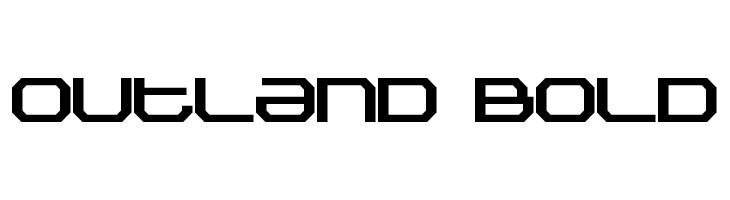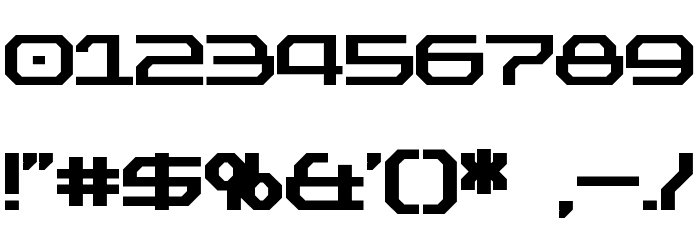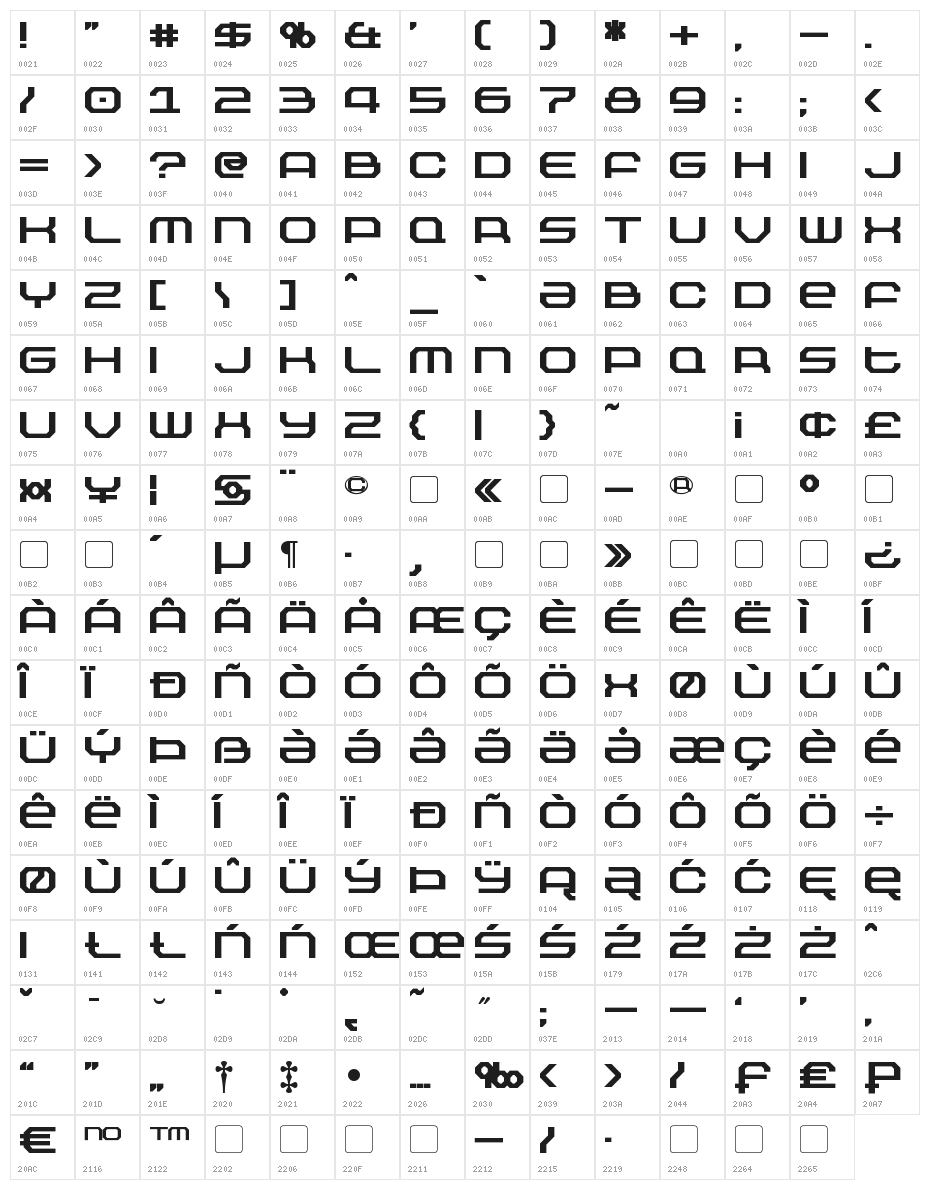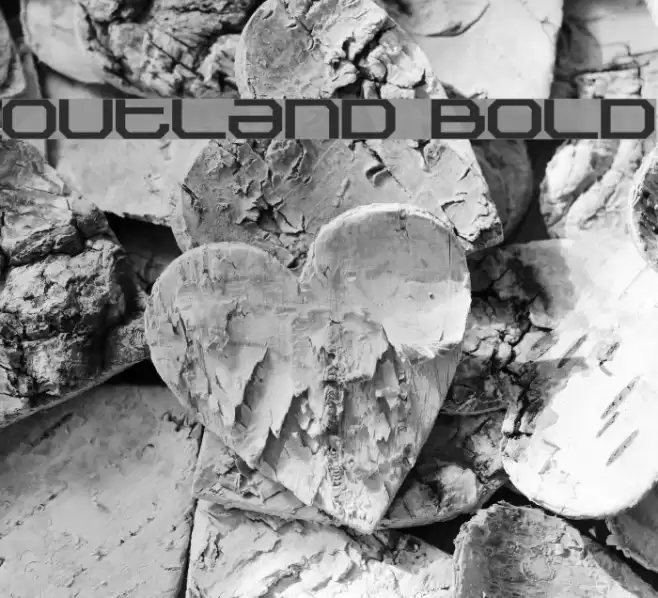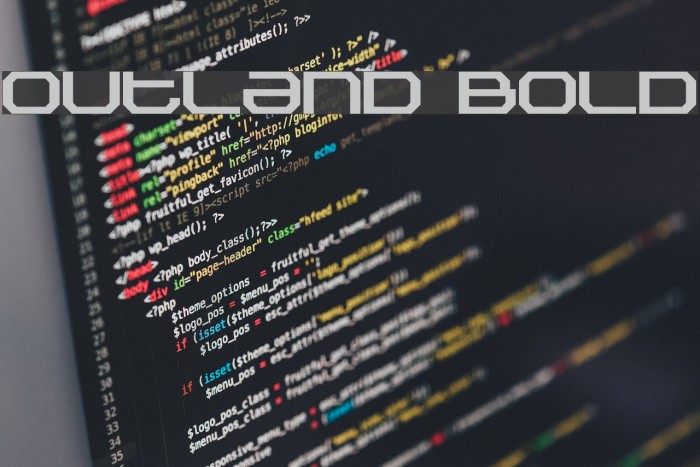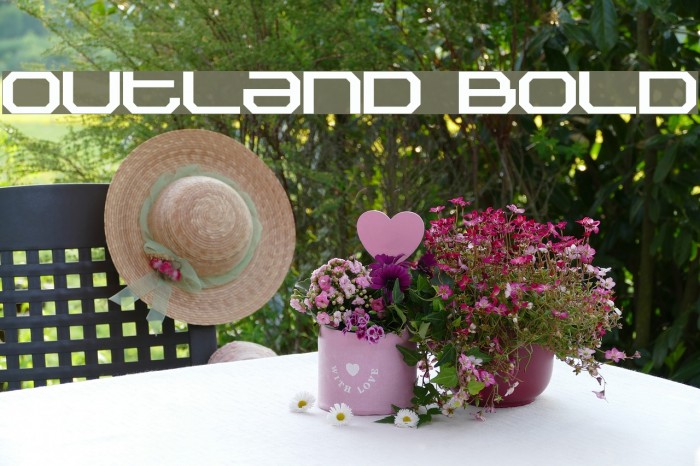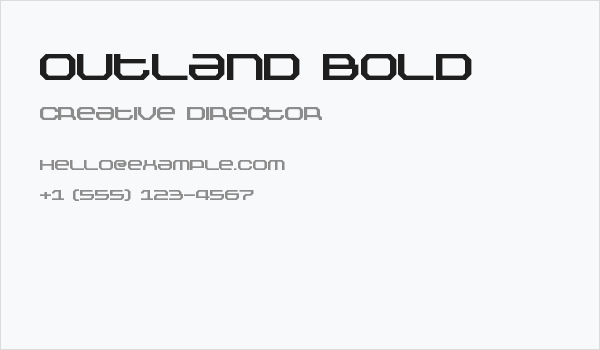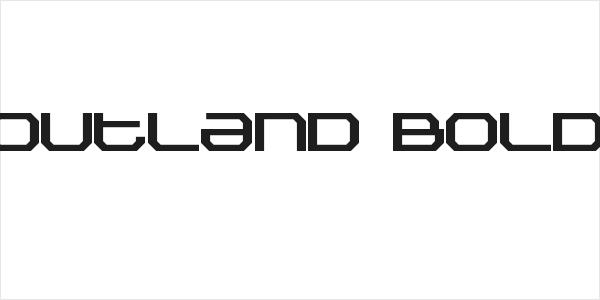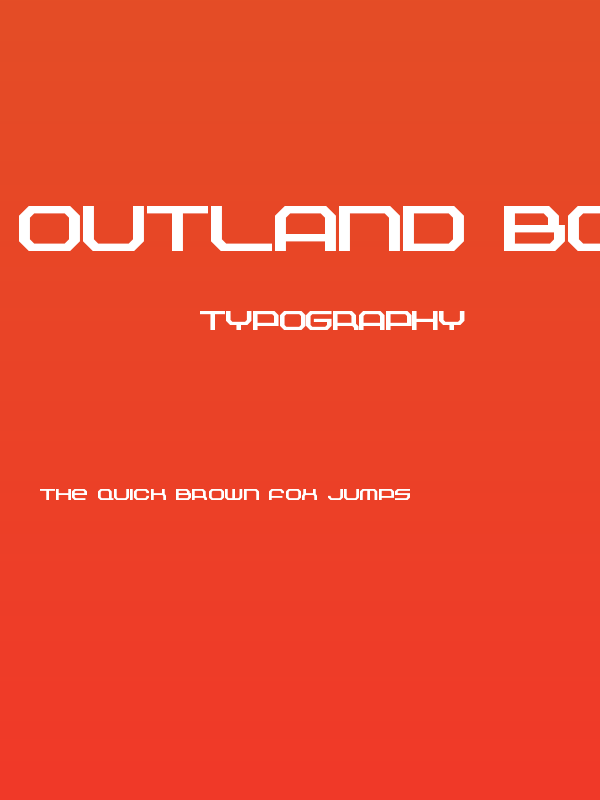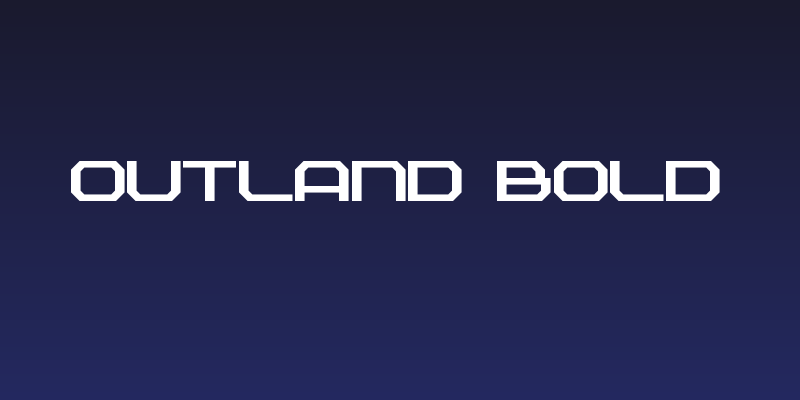
Outland Bold Font
Outland Bold Description
This font features a bold, geometric design with a futuristic and digital aesthetic. The characters are constructed with straight lines and sharp angles, giving them a mechanical and structured appearance. The uppercase and lowercase letters maintain a consistent style, with the lowercase being slightly more compact. The numbers and special characters follow the same design principles, ensuring uniformity across all glyphs. The font's distinct style makes it suitable for projects that require a modern and tech-savvy look.
| Proposed Projects | Ideal for technology branding, video game titles, sci-fi movie posters, and digital interfaces. |